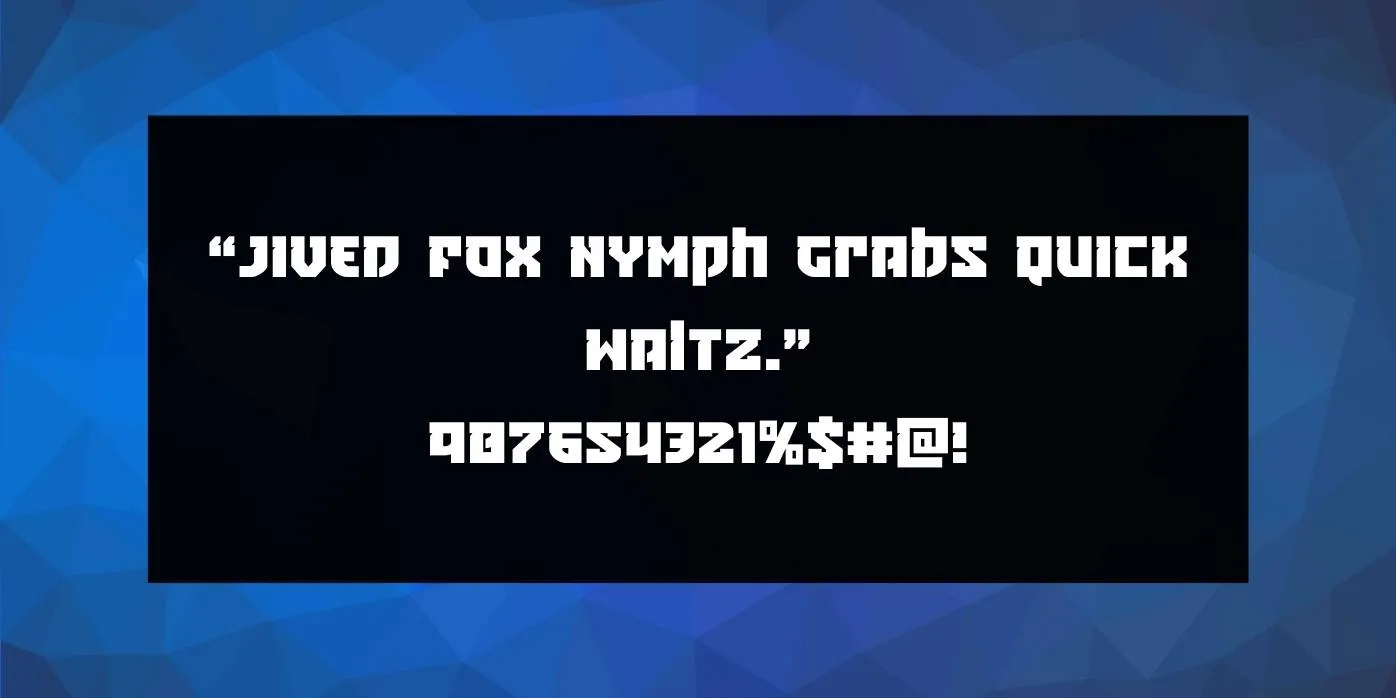
Crazy Ivan Font
Crazy Ivan Font was designed by Daniel Zodorozny. This font is very unique and beautiful. The foundry of this font is Iconian fonts and has been used by many famous designers because it is famous for its modern and stylish look. It consists of 219 characters and 219 glyphs.
The weight of the font is normal, width is medium (normal). This typeface has Unicode Basic- Latin, Latin-1 supplement, spacing modifier letters, general punctuations, currency symbols, and letterlike symbols. It has many features like capital letters, numbers, symbols, and punctuation. It also provides the facility of an online generator tool which makes it more efficient in working. Usage This font gives a very immensable look to your project it can be used in many projects because of its regular weight.
It is very easy in reading. It is also used by Google, Apple, and Microsoft which increases its publicity as well. The style of this typeface can be used for making headlines, printing media, branding, and much more. You can also use this font by pairing it with the open dyslexic font.